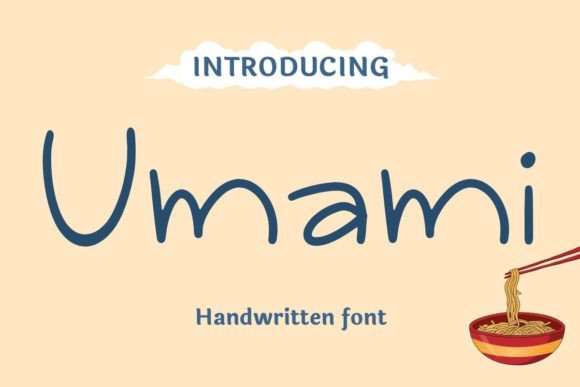
Introduce Umami Font: Savor the Sweetness of Modern Elegance
In the realm of creativity, fonts hold the power to transform ordinary words into expressions of art. And among the vast tapestry of typefaces, Umami Font stands out as a true masterpiece. Its whimsical strokes, reminiscent of a playful dance, add a touch of magic to any project.
Umami is more than just a collection of letters; it's a gateway to a world of endless possibilities. With its unique script style, Umami captures the essence of handwritten notes, evoking a sense of nostalgia and warmth. Each glyph is crafted with meticulous care, resembling the graceful flow of a calligrapher's pen.
This delightful font family is the brainchild of zikadoozz, a renowned font designer known for their exceptional artistry. zikadoozz poured their heart and soul into creating Umami, ensuring that every curve and every stroke is a reflection of their passion for typography.
Umami's versatility knows no bounds. It seamlessly adapts to a myriad of creative endeavors, from mug designs to shirt prints, hats to tote bags. Its charming personality shines through in card making, wall art, interior prints, and so much more.
- **Transmit the Essence of Joy:** Umami's inherent cheerfulness is contagious. Its playful lines and charming curves evoke a sense of optimism and lightheartedness, making it ideal for designs that aim to spread joy and happiness.
- **Connect with Your Audience on a Personal Level:** Umami's handwritten style has a disarmingly personal touch. It feels like a friend's warm embrace, inviting your audience to connect with your message on a deeper level.
- **Make a Statement with Individuality:** Umami isn't just another font; it's a statement piece. Its unique design sets your work apart from the crowd, ensuring that your creations stand out and leave a lasting impression.
- **Express Yourself with Endless Creative Possibilities:** Whether you're a seasoned designer or just starting your creative journey, Umami provides a boundless canvas for your imagination. Its adaptability to a wide range of projects makes it the perfect companion for exploring your artistic vision.
With Umami Font, you'll embark on a creative adventure that's both delightful and rewarding. Its magical touch will transform your designs into captivating expressions of art, leaving your audience spellbound.